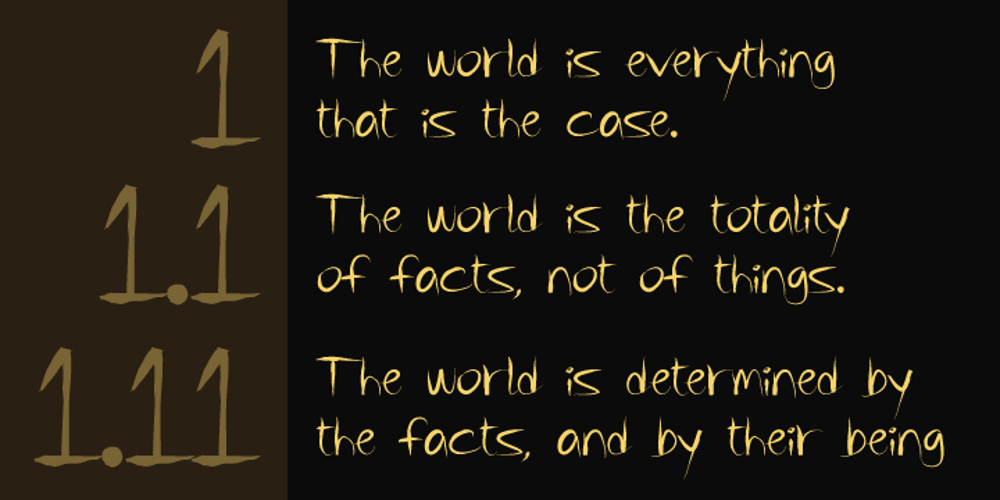
Imagination Theory Font Family was designed by Alec Julien and published by Haiku Monkey. Imagination Theory contains 2 styles and family package options. Imagination Theory is an informally elegant handwritten font, crafted with informal, elegant love and care.